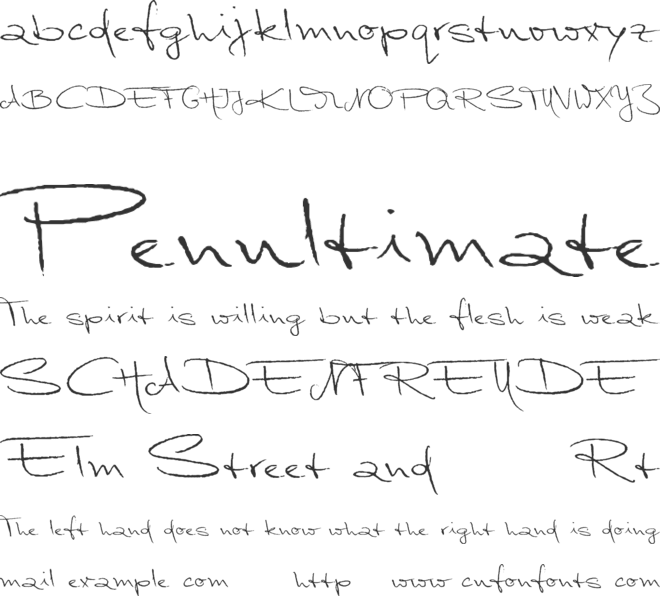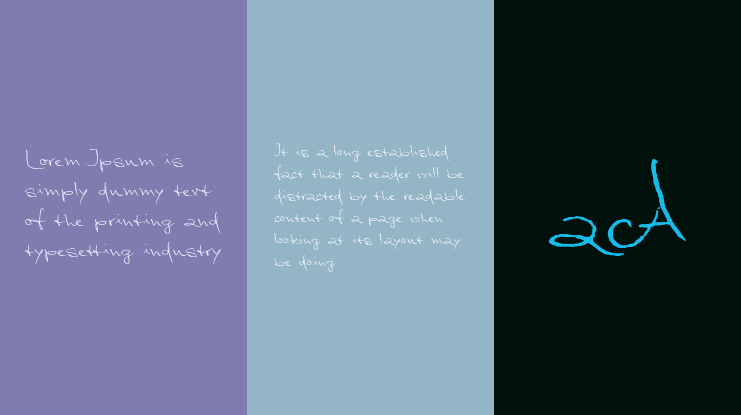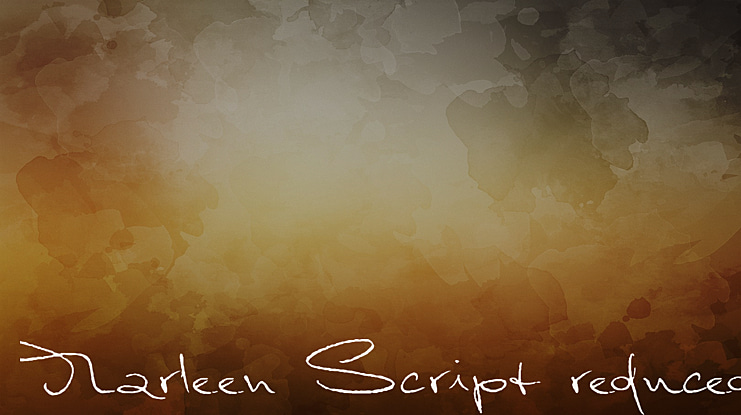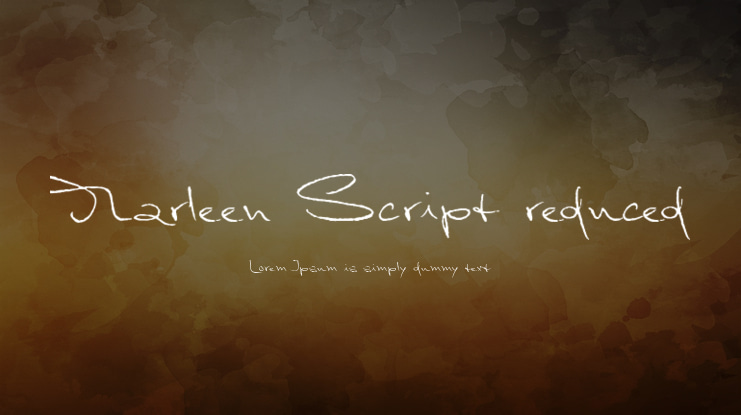
An authentic style of feminine handwriting with a pencil.
Who still writes by hand? And who still writes nicely? What constitutes beautiful handwriting anyway?
Printed scripts typically display uniform characters. Whereas normal calligraphy attempts to achieve this regularity as well, a personal handwriting style indeed lives from the irregularity of completely individual forms. An e is just not always the same, but can or must look very different depending on the letter which precedes or follows it.
Whenever an attempt was made to produce a typeface from calligraphy, these irregularities had to be dealt with in such a way that forms were discovered which always made a connection possible with the neighboring letters. That's why we have the unnaturally sterile characters of calligraphies which are available today as "calligraphy scripts." With the help of ligatures, it is actually quite easy to come up with varied letter combinations in a typeface. But only with the introduction of the OpenType font formats is it possible to embed an adequate amount of ligatures and stylistic alternates in a font and to apply them in a simple manner.
In Marleen Script nearly 100 stylistic alternates for individual letters and more than 400 ligatures are included.
With these options it is finally possible to convincingly simulate the effect of true handwriting with a typeface.